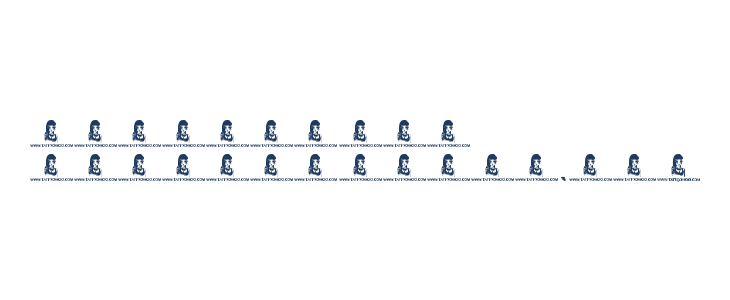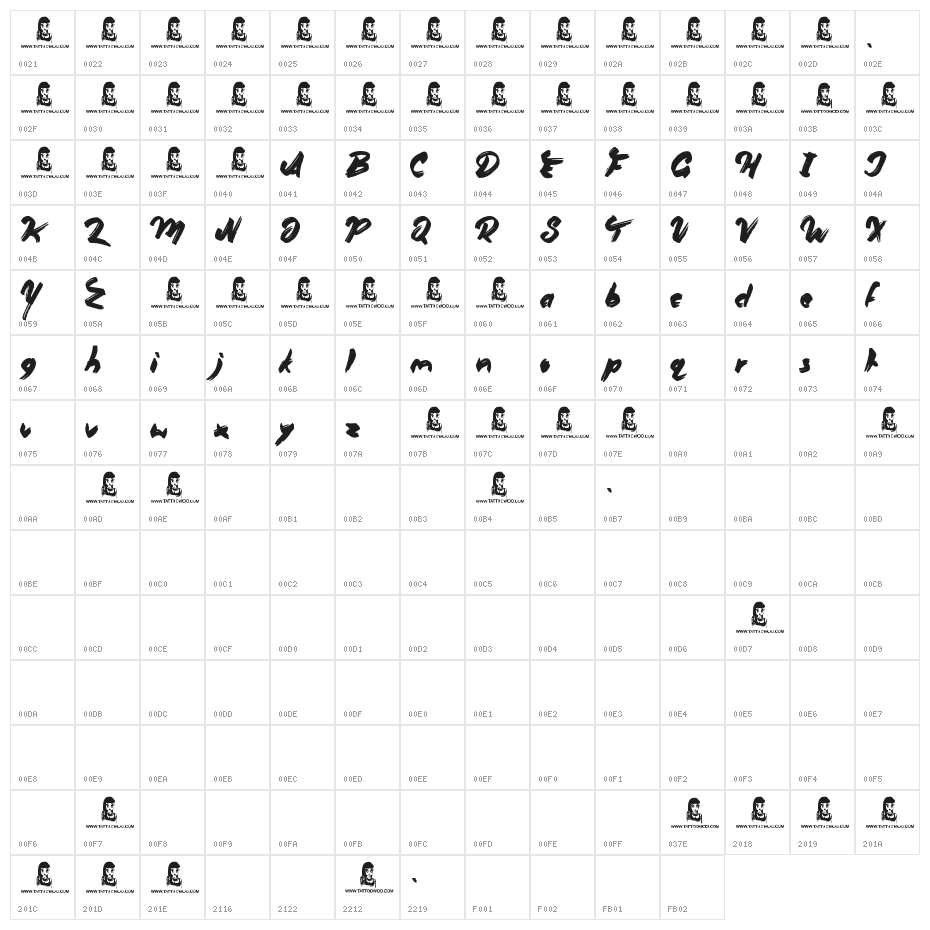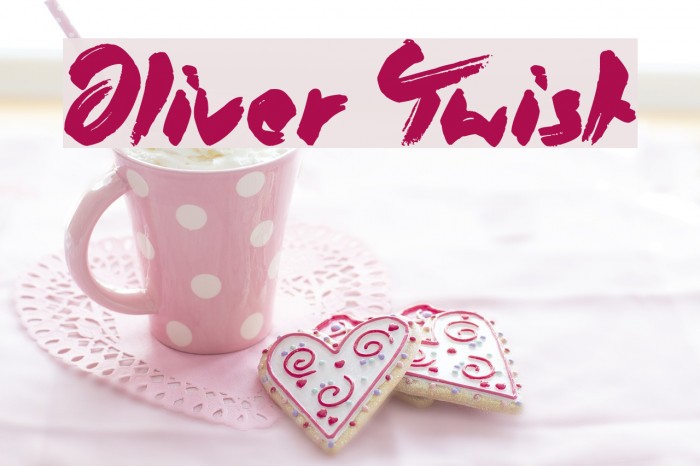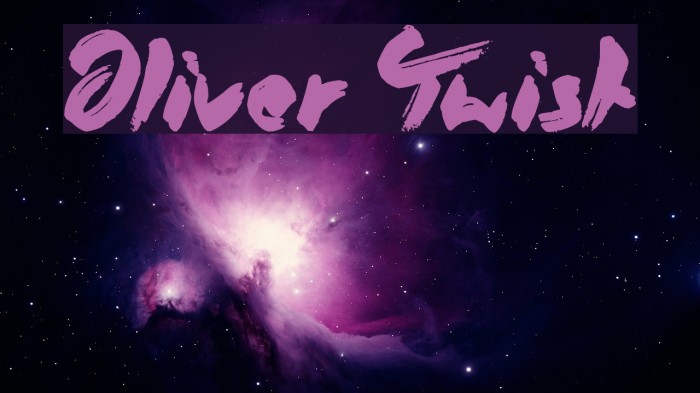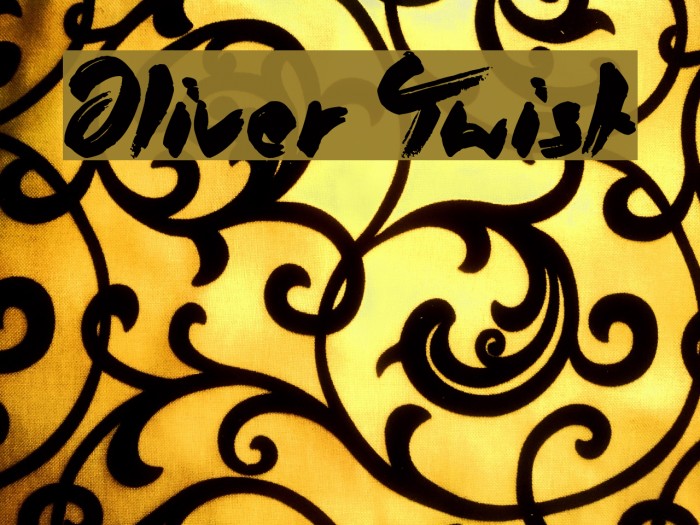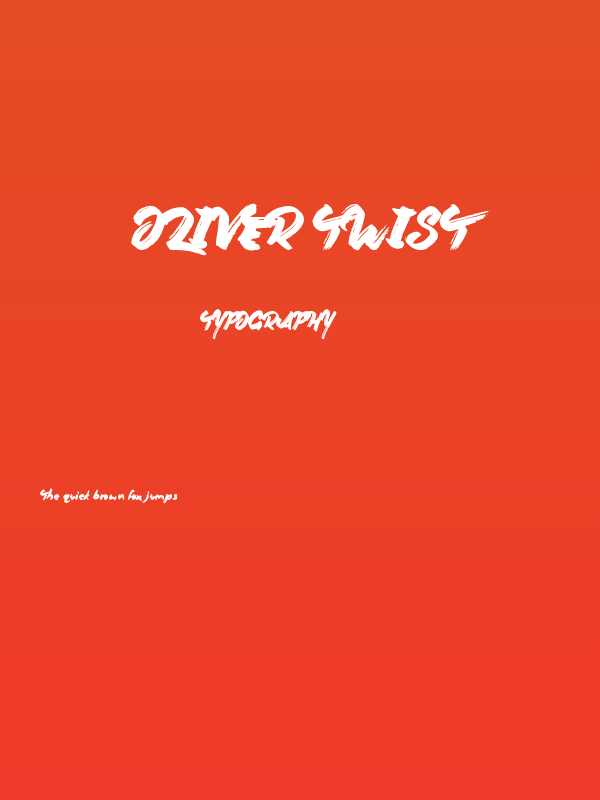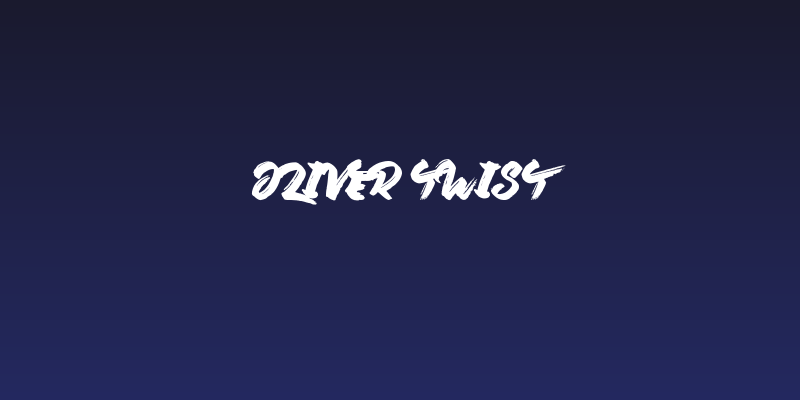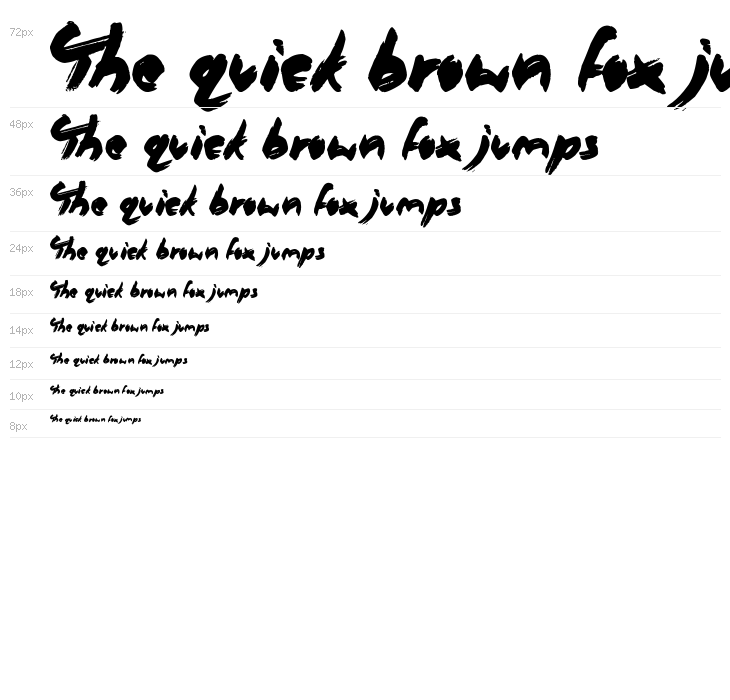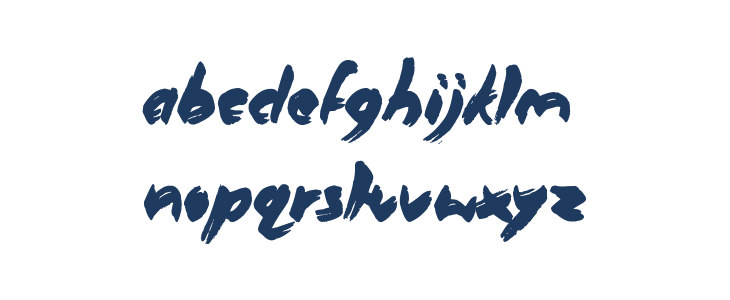
Oliver Twist Font
Oliver Twist Description
This font features a bold, expressive brush style that exudes energy and dynamism. The strokes are thick and uneven, giving it a hand-painted appearance. The uppercase and lowercase letters maintain a consistent style, with dramatic flourishes and a sense of movement. The characters are slightly slanted, adding to the dynamic feel. This font is ideal for projects that require a bold statement, such as posters, headlines, or artistic designs. Its unique style captures attention and conveys a sense of creativity and spontaneity.
| Use Case | Headlines, Artistic designs, Posters |
| Proposed Projects | Ideal for posters, headlines, artistic designs, and any project needing a bold, creative touch. |